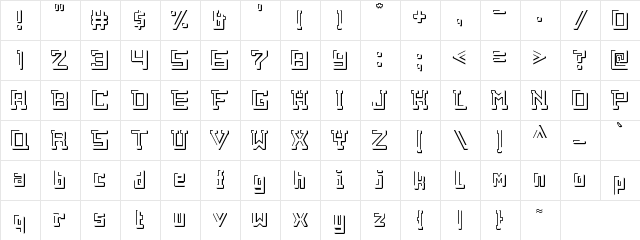
white space Regular Font Preview
white space Regular
white space Regular Font Details
Design Context for white space Typeface
white space is a composed and adaptable typeface that performs quietly and consistently across a wide range of design contexts.